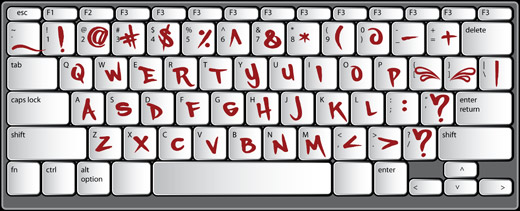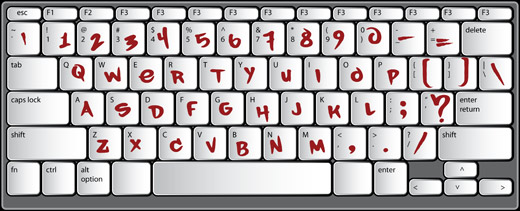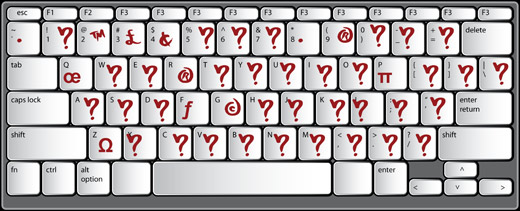
Captions™
EXCLUSIVE! - All new Graffiti Font™
As its name suggests Captions is a font created to mimic the small ledgible bodies of text that often accompany pieces & productions. The letters were originaly created with spray paint & rendered solid & smooth.